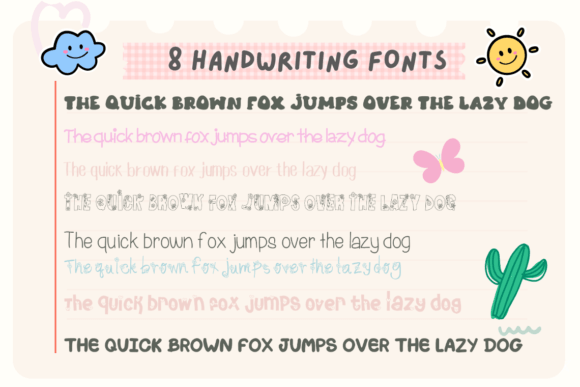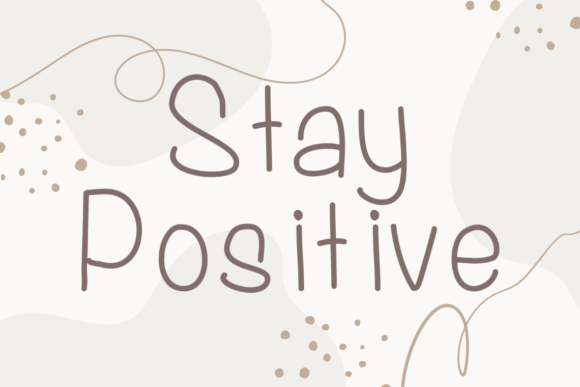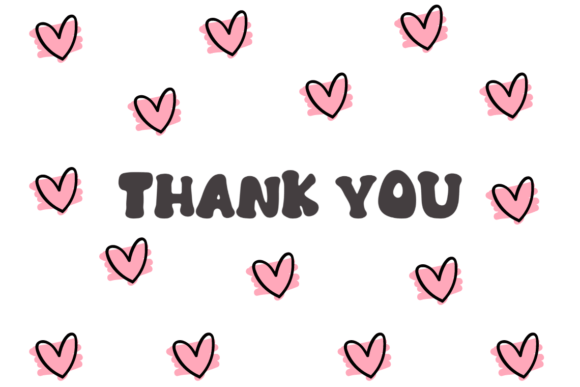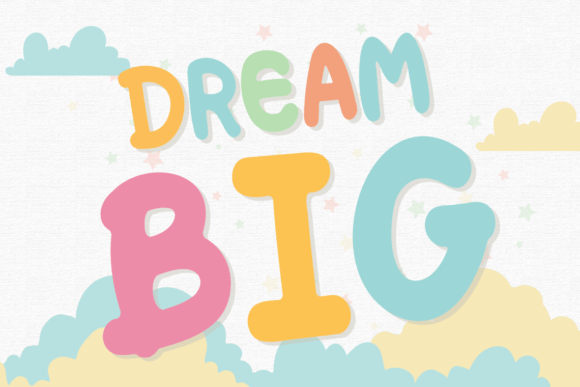
Introduction to Handwritten Bundle Font
Have you ever stared at a blank canvas, feeling the creative juices flowing, and desperately seeking the perfect font to bring your vision to life? This is where the Handwritten Bundle Font comes in – a treasure trove of modern and minimalist typefaces designed to add a touch of elegance and personality to your designs.
As a designer, you understand the importance of having a reliable design resource that can elevate your creative projects. The Handwritten Bundle Font is that game-changing asset, offering a versatile collection of high-quality fonts perfect for posters, invitations, headers, titles, greeting cards, and more. With its transparent background and seamless blending capabilities, this font bundle is a dream come true for designers seeking to add a touch of sophistication to their work.
Key Features of Handwritten Bundle Font
- High-quality, unique handwritten font styles for creative projects, available for free download and perfect as a design resource.
- Each font style features a transparent background option, ideal for use on any color background or design element.
- Available in multiple sizes, from 12pt to 72pt, making it easy to customize for any creative project or design need.
- Designed with high resolution (300 DPI) for crisp, clear display on various devices and screens.
- Unique characteristics include varied line widths, creative flourishes, and authentic handwritten feel, perfect for adding a personal touch to designs.
- Perfect for use in digital and print projects, including social media graphics, posters, flyers, and more.
Honest Review: Handwritten Bundle Font
As a designer, I’m always on the lookout for high-quality design resources to elevate my creative projects. Recently, I stumbled upon the Handwritten Bundle Font, and I’m excited to share my honest review with you.
What works well: ✨ The Handwritten Bundle Font offers a wide range of unique and stylish fonts that can add a personal touch to any design project. The font is highly customizable, making it perfect for creative projects that require a unique look. I also appreciate the transparent background option, which makes it easy to integrate the font with any design.
Limitations: ⚠️ While the font is generally high quality, I found some of the fonts to be a bit inconsistent in terms of style and formatting. Additionally, some of the fonts may not be suitable for small text sizes due to their cursive nature.
Overall, I think the Handwritten Bundle Font is a great design resource for designers who want to add a personal touch to their projects. It’s a great option for free download, and the quality is generally high. However, be aware of the limitations mentioned above, and use it judiciously in your designs.
- Unique and stylish fonts
- Wide range of font styles
How to Use Handwritten Bundle Font
Download the Handwritten Bundle Font and install it on your computer. Open Adobe Photoshop or Illustrator and select the font from the list of available options. Use the font to create a variety of designs, from logos to typography-based art. Experiment with different font styles and sizes to achieve the desired effect.
Insert the Handwritten Bundle Font into your PowerPoint or Word document. Use the font to add a personal touch to your presentations or written content. Take advantage of the high-quality design resource to create engaging and professional-looking documents.
Tips for Getting the Most Out of the Handwritten Bundle Font
Experiment with different font styles and sizes to achieve the desired effect. Use the transparent background feature to create unique and eye-catching graphics. Combine the Handwritten Bundle Font with other design elements to add depth and interest to your designs.
The Handwritten Bundle Font is ideal for creative projects such as invitations, greeting cards, and social media graphics. It’s also suitable for use in presentations, reports, and other written content. Use the font to add a personal touch and make your designs stand out from the crowd.